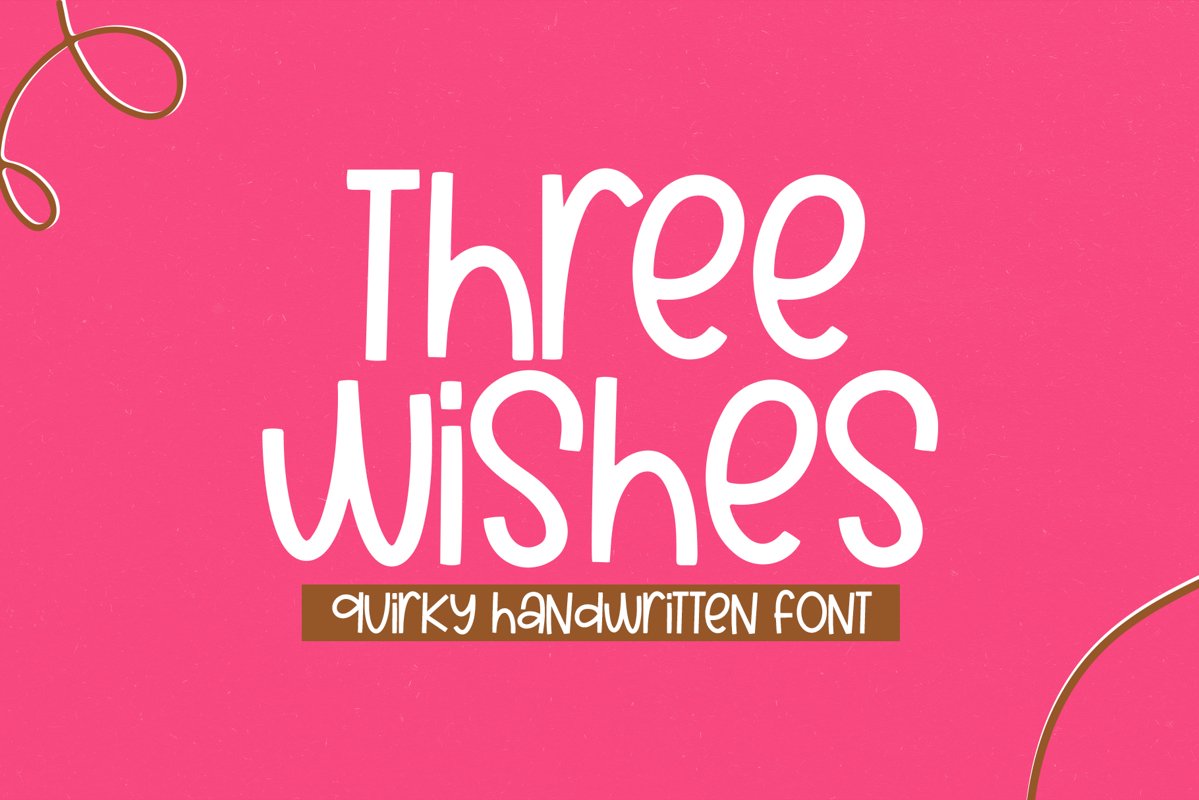
Three Wishes is a fun, mixed case font!
This font is perfect for quotes, shirt designs, websites, branding, children's designs, svg designs, blogs, logos, invitations and more!